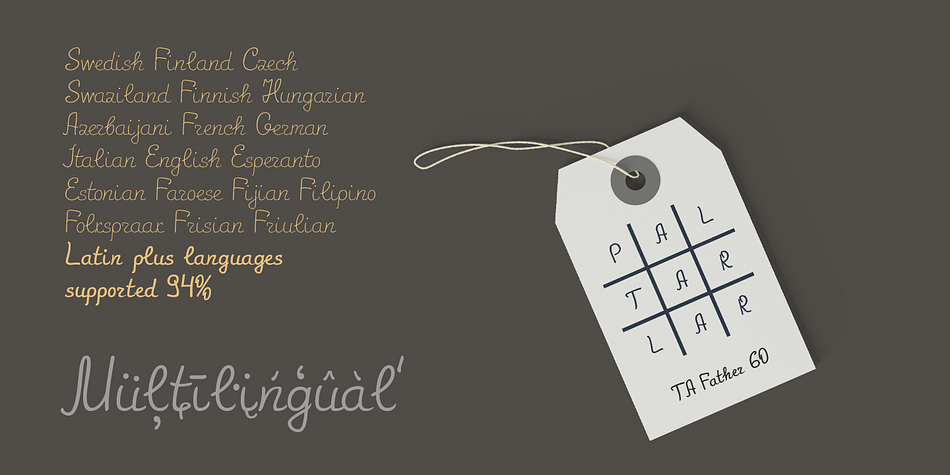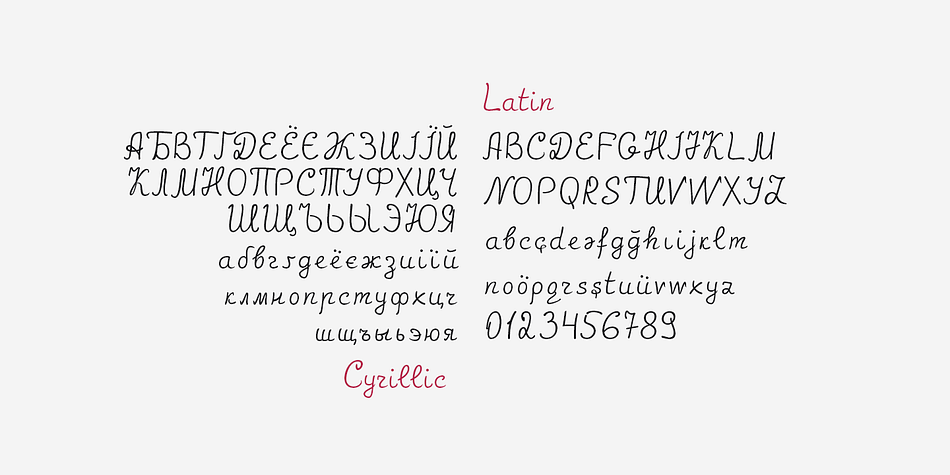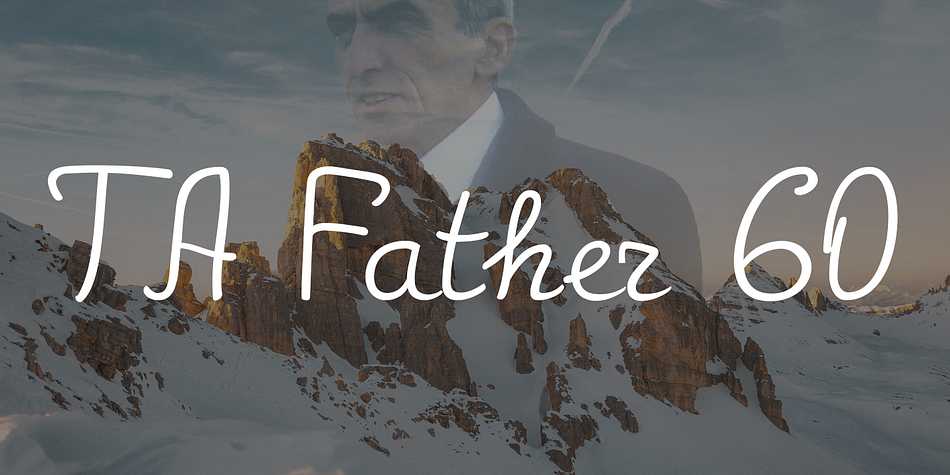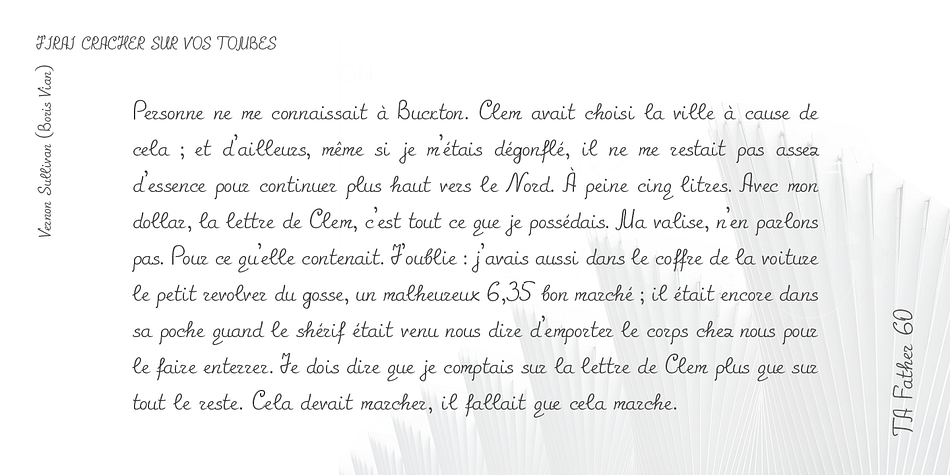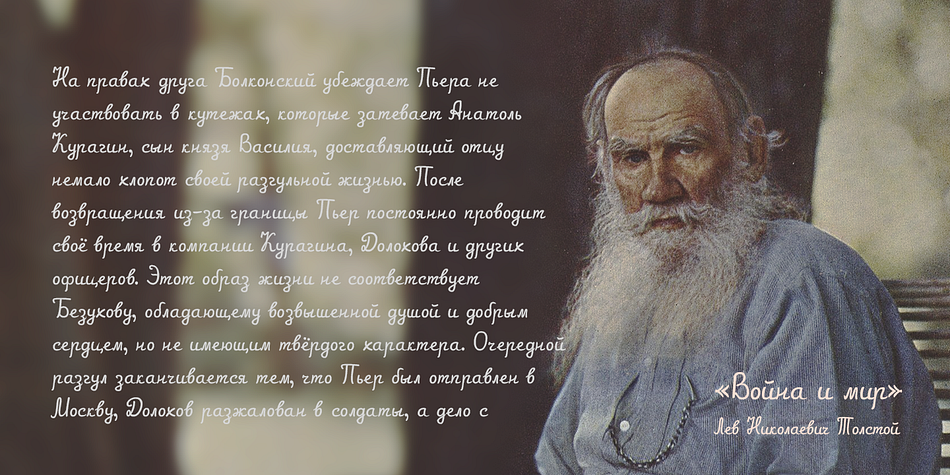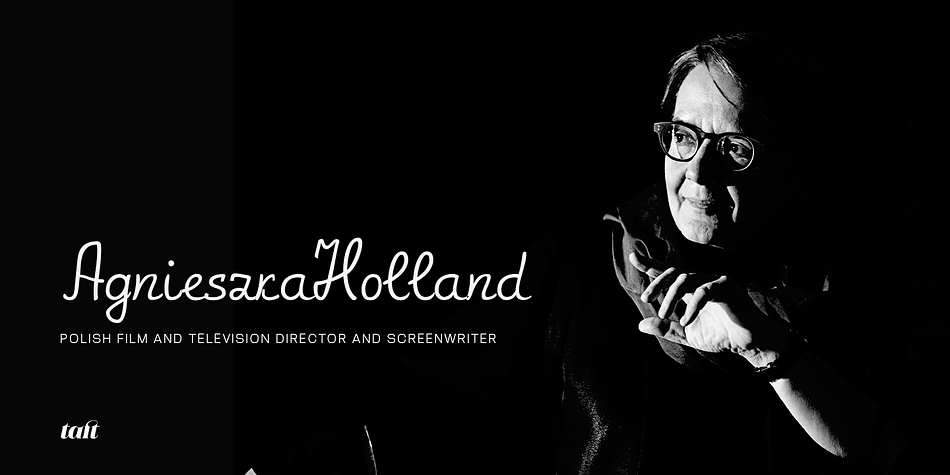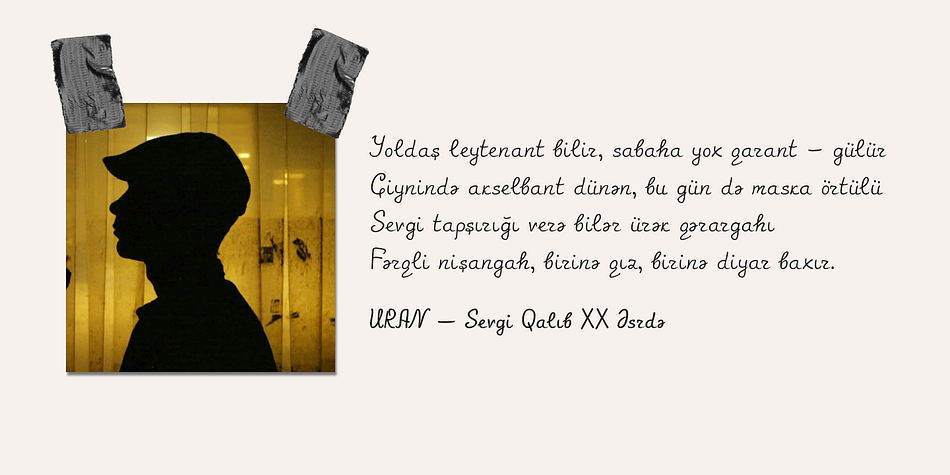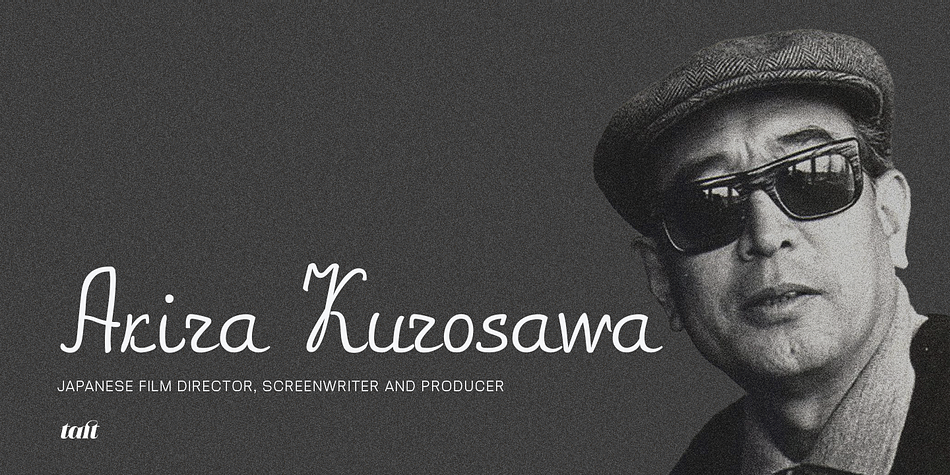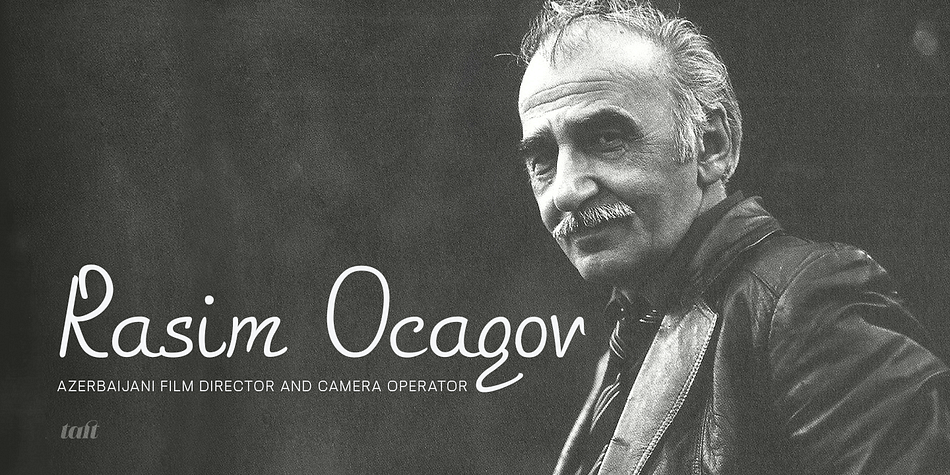
TA Father 60
TA Father 60 is a hand drawn font family. This typeface has two styles and was published by TAFT Foundry.
Since 2017, I have been improving my font creating skills. In the same year, I went through my father’s notes and decided to make a font with his handwriting style.
I completed the initial version with a lower number of glyphs in 2018. It supported only basic Latin, Turkish, and Azerbaijani alphabets.
On the 15th of January 2021, my dad will turn 60. I am planning to finalize the updated version of the Father font by then.
584 glyph, 100+ Languages Set.
Multilingual support: Latin basic, Latin Extended, Cyrillic, Central Europe, Turkish, Romanian, Euro, West European diacritics